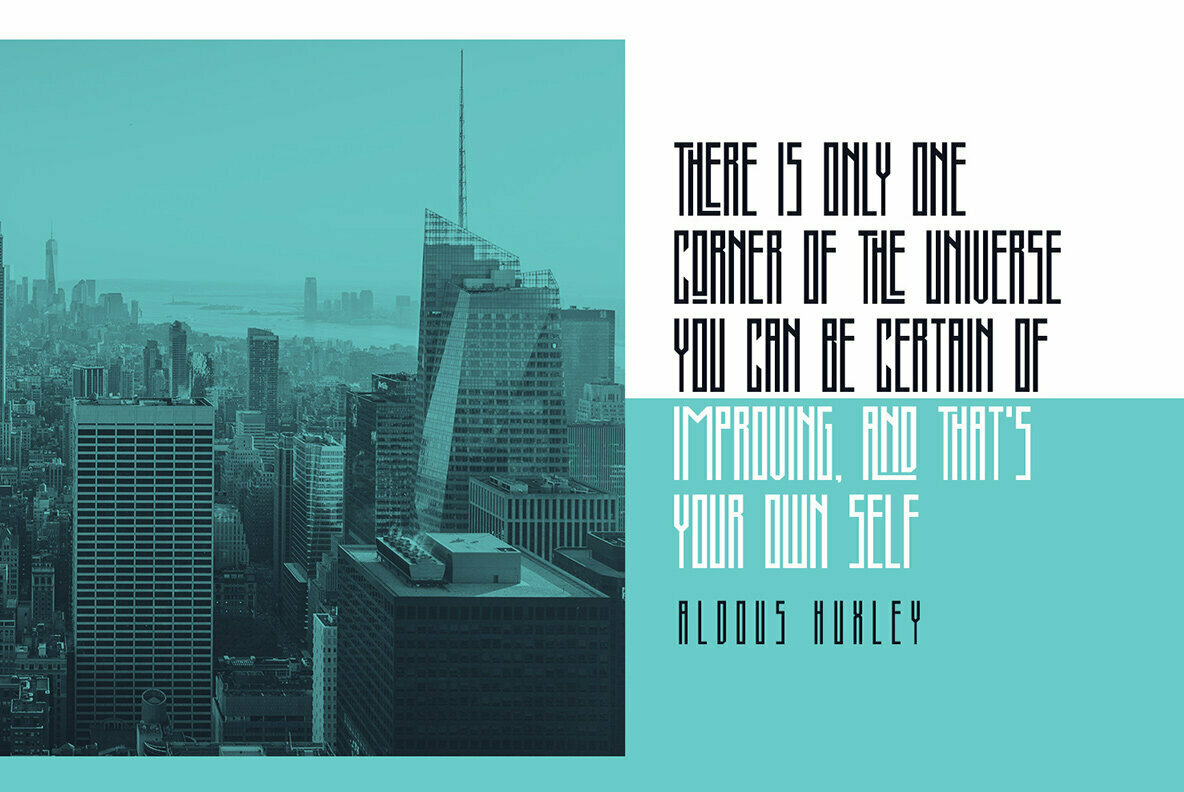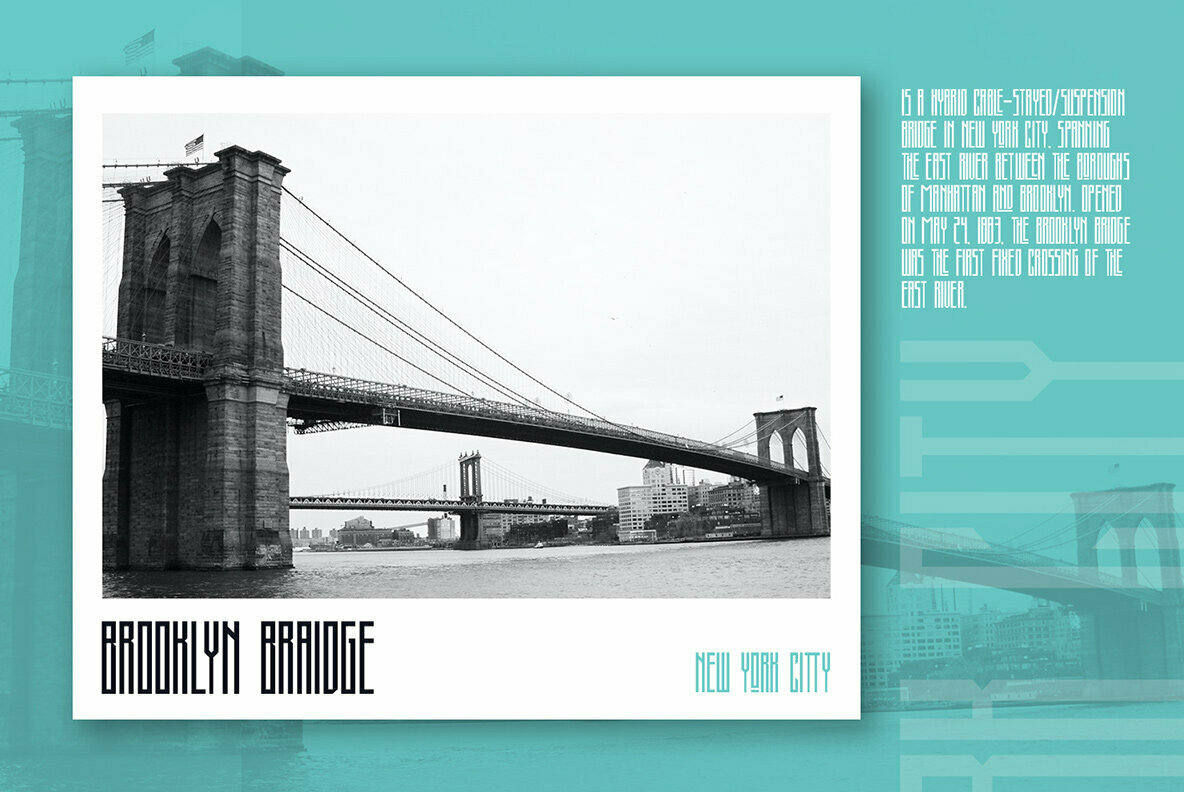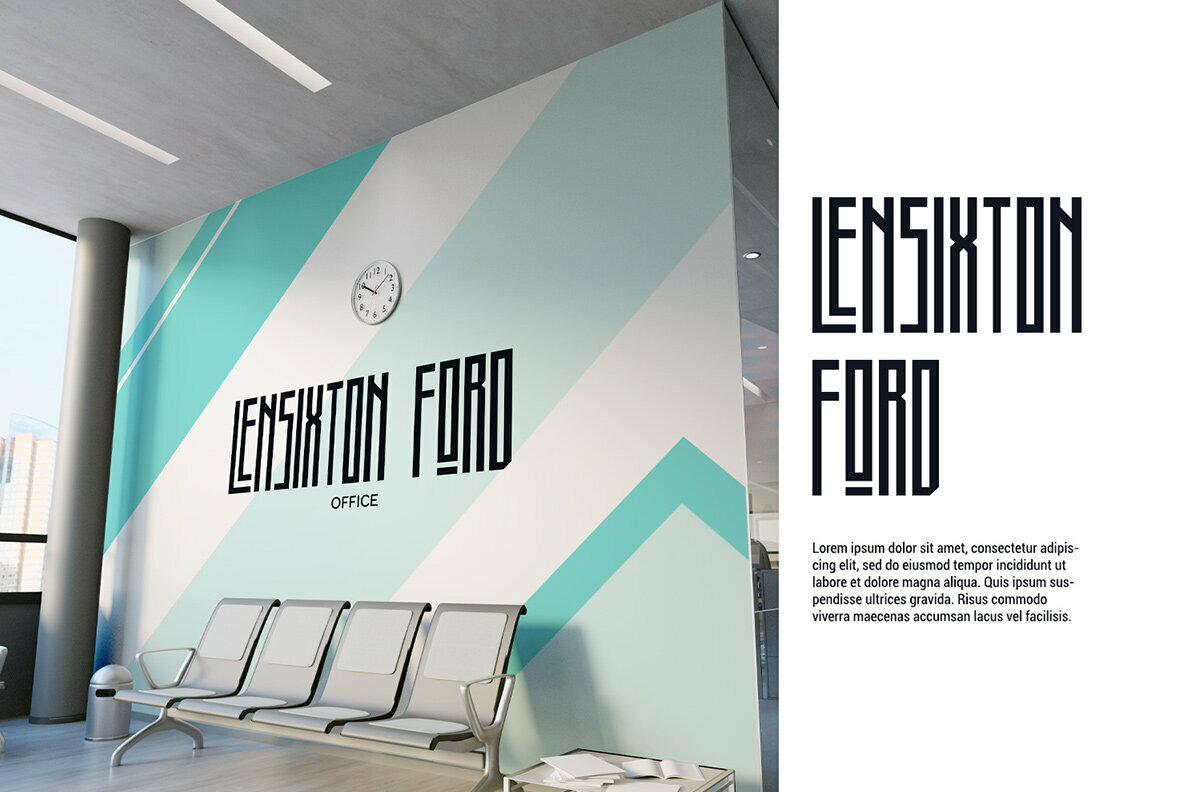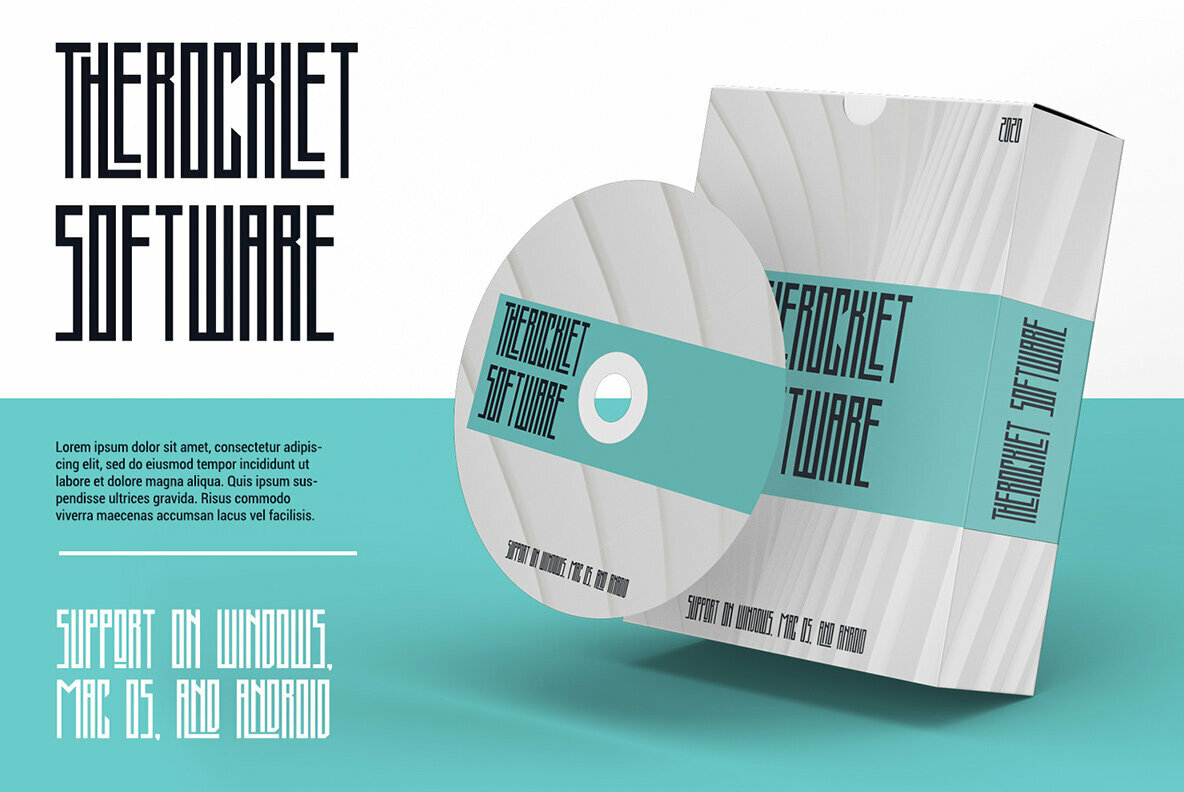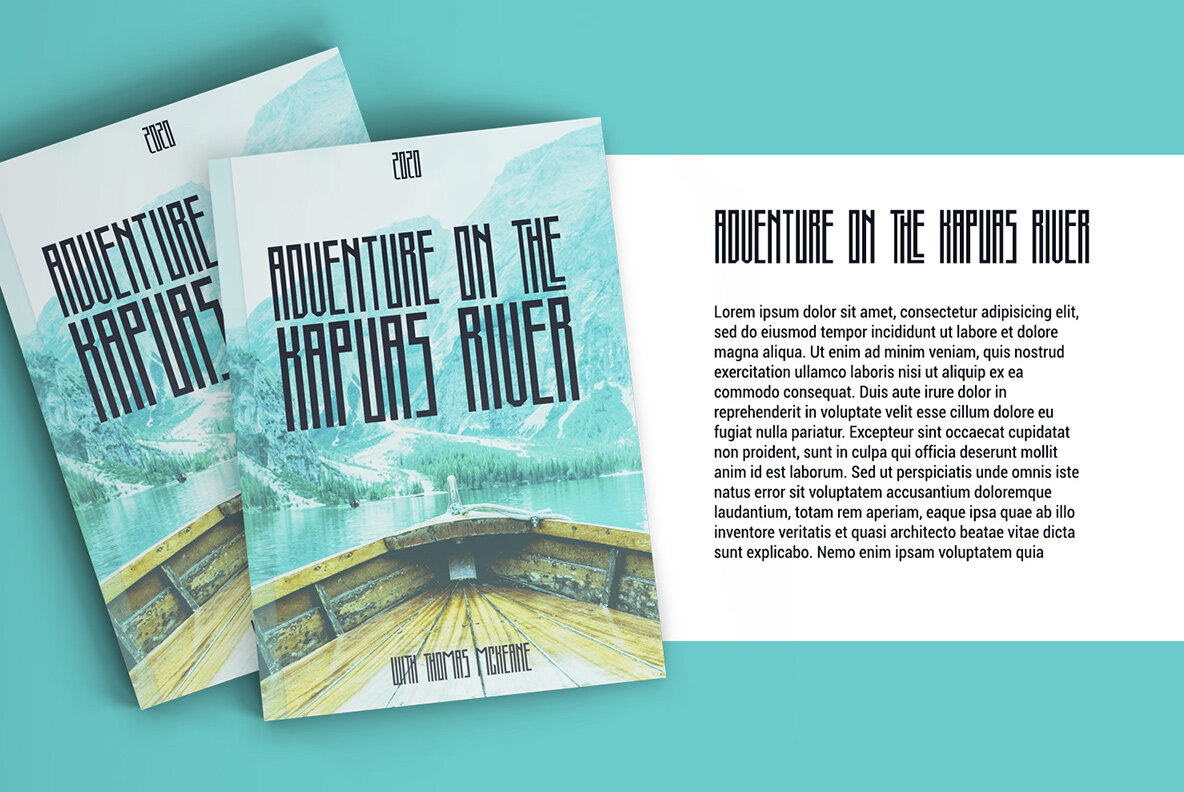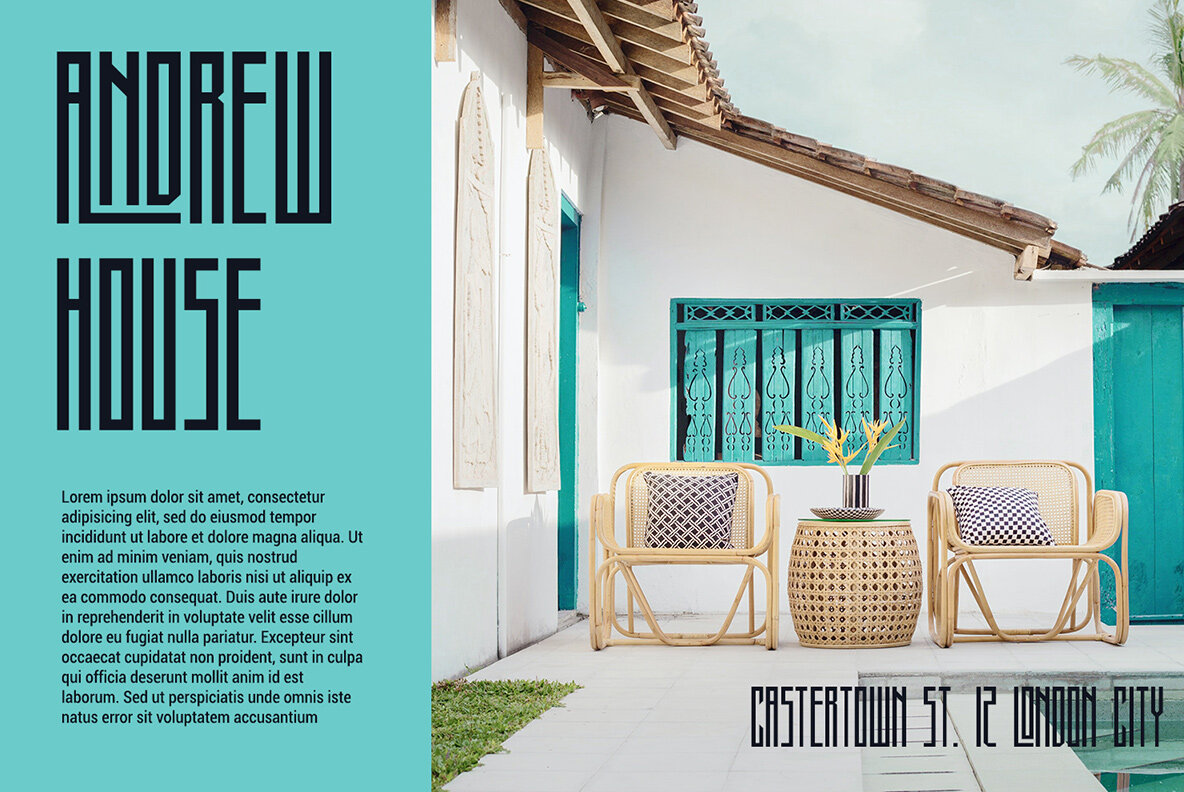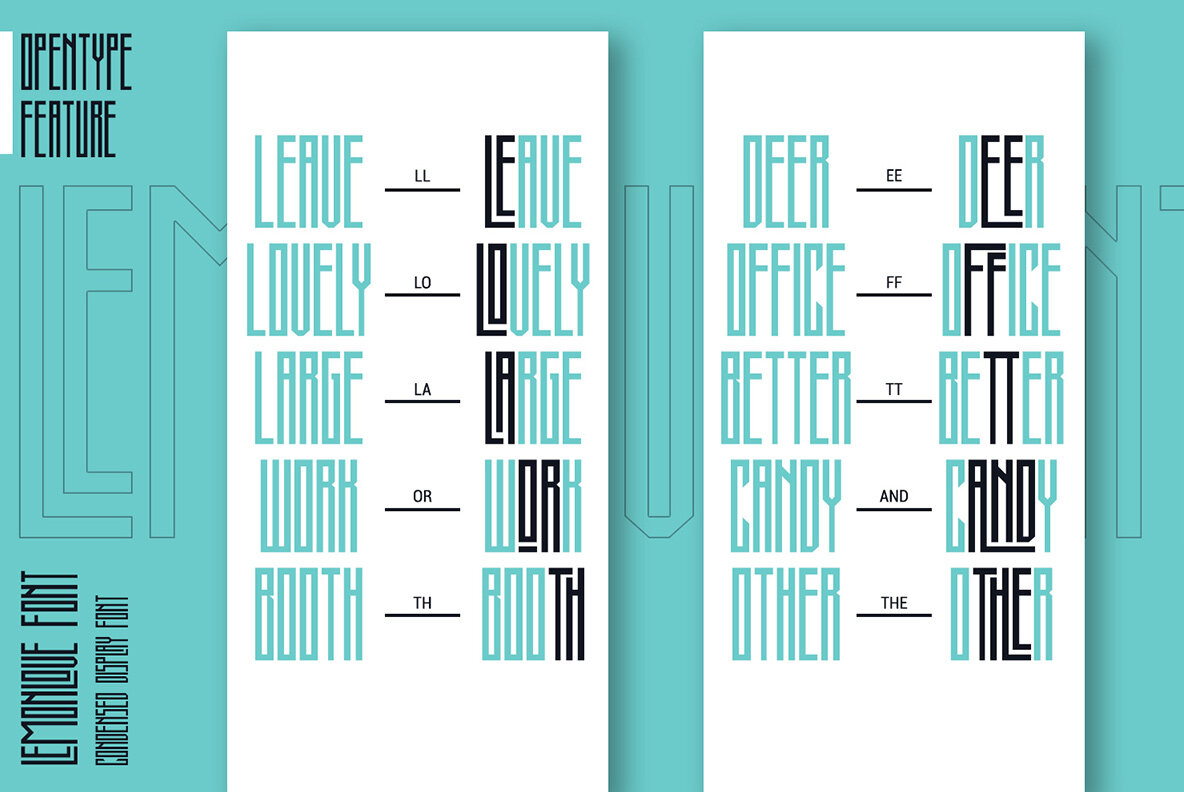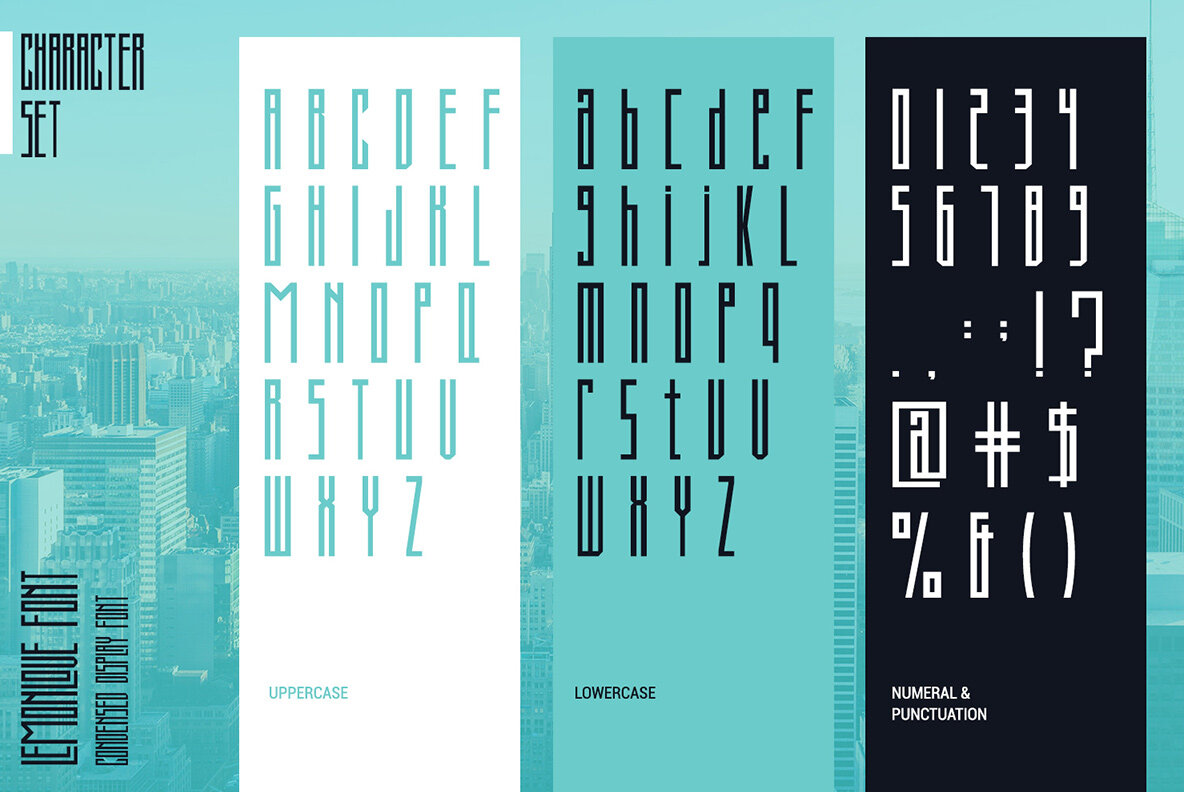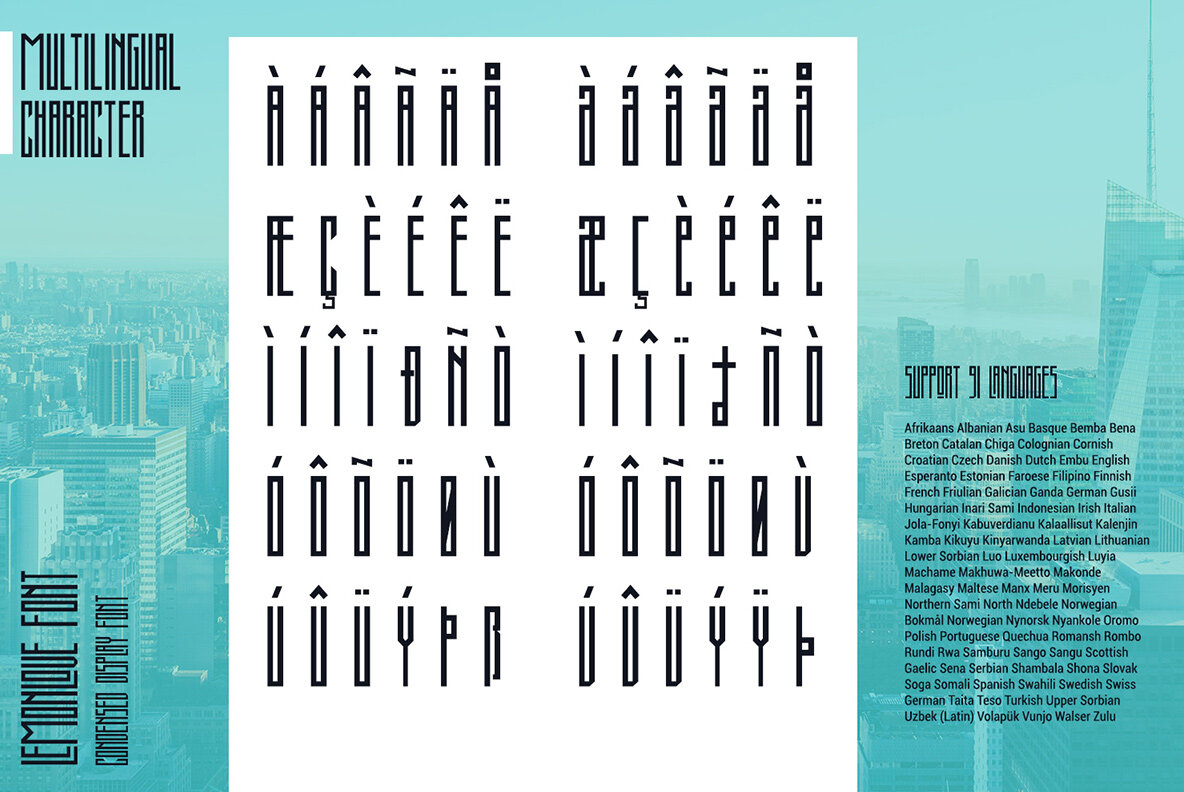
Lemonlove Font
Lemonlove
Lemonlove, curated by Din Studio, is a contemporary condensed display font that injects a modern aesthetic into your design projects. With its versatile appearance, Lemonlove is ideal for a range of applications, from logotypes and branding to packaging and more.Lemonlove: Vibrant Condensed Display Font